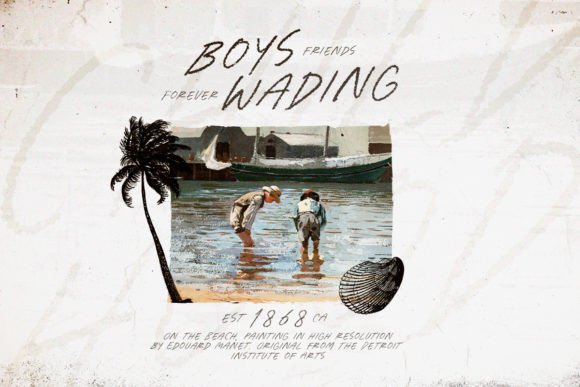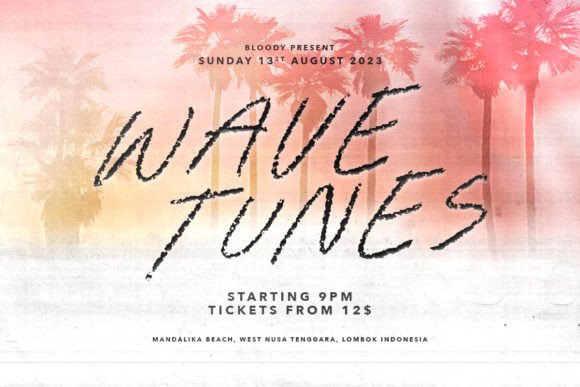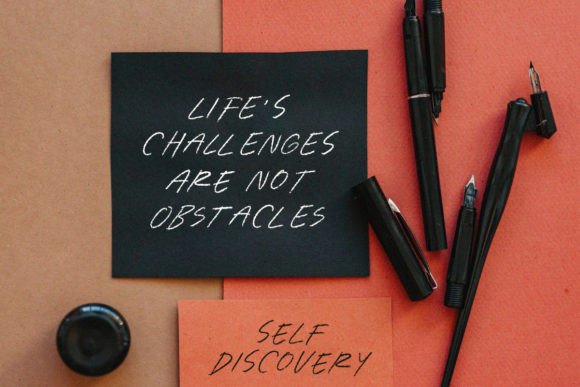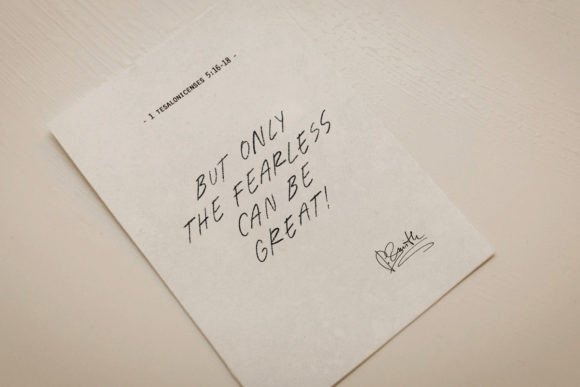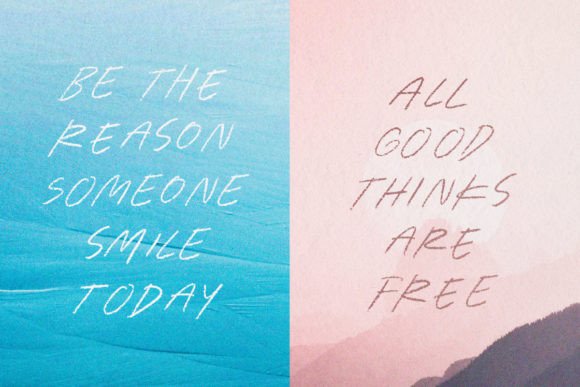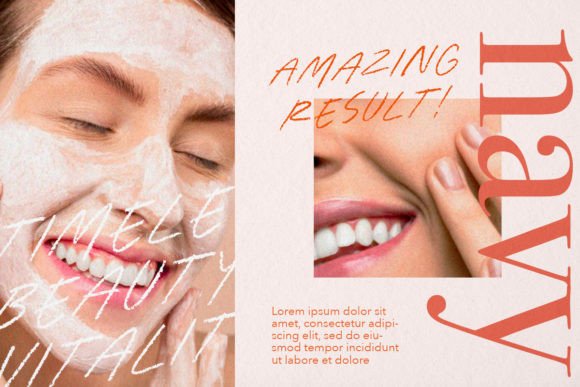
Cruel Summer Font: The Perfect Handmade and Chalk-Inspired Typeface
Are you looking for a font that can add a touch of handmade and chalk-like texture to your designs? Look no further than the Cruel Summer Font. This unique typeface is designed to mimic the look of dry brush strokes, giving your text a rough and textured appearance that’s perfect for a variety of design projects.
What is Cruel Summer Font?
Cruel Summer Font is an all-caps font that’s made to resemble the look of dry brush strokes. The font features a unique texture and roughness that’s reminiscent of handmade and chalk-written text. With its distinctive look, this font is perfect for designers and crafters who want to add a personal touch to their designs.
Key Features of Cruel Summer Font
- All-caps font: Cruel Summer Font is an all-caps font that’s perfect for creating bold and eye-catching text.
- Dry brush texture: The font features a unique dry brush texture that gives it a rough and handmade look.
- Uppercase and lowercase letters: The font includes both uppercase and lowercase letters, allowing you to combine them to create a natural, handwritten look.
- Multi-language support: Cruel Summer Font supports multiple languages, making it a versatile choice for designers and crafters around the world.
Use Cases for Cruel Summer Font
Cruel Summer Font is a versatile typeface that can be used in a variety of design projects. Here are some use cases where this font shines:
- Quotes and posters: The font’s bold and textured look makes it perfect for creating eye-catching quotes and posters.
- Menus and signage: Cruel Summer Font is a great choice for menus, signage, and other applications where a rough and textured look is desired.
- Slogans and taglines: The font’s handmade look makes it perfect for creating slogans and taglines that need to stand out.
- Handmade and craft projects: Cruel Summer Font is a great choice for designers and crafters who want to add a personal touch to their handmade projects.
Tips for Using Cruel Summer Font
Here are some tips for getting the most out of Cruel Summer Font:
- Experiment with font sizes: The font’s texture and roughness look great at a variety of font sizes, so don’t be afraid to experiment.
- Combine uppercase and lowercase letters: Combining uppercase and lowercase letters can help create a natural, handwritten look.
- Use the font with images: Cruel Summer Font looks great when paired with images, especially those with a textured or handmade look.
Cruel Summer Font is a unique and versatile typeface that’s perfect for designers and crafters who want to add a touch of handmade and chalk-like texture to their designs. With its dry brush texture, uppercase and lowercase letters, and multi-language support, this font is a great choice for a variety of design projects. Whether you’re creating quotes, menus, slogans, or handmade projects, Cruel Summer Font is sure to make your text stand out.